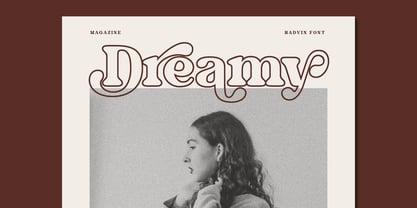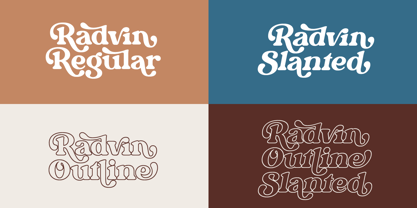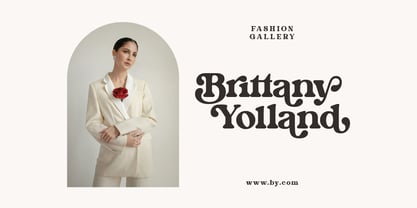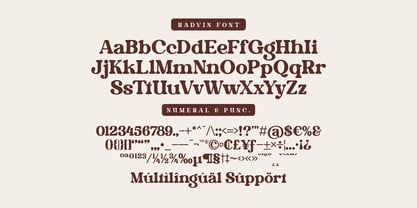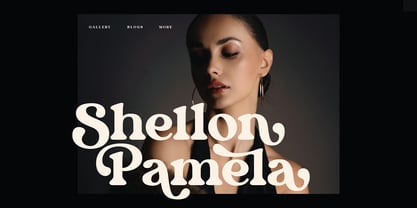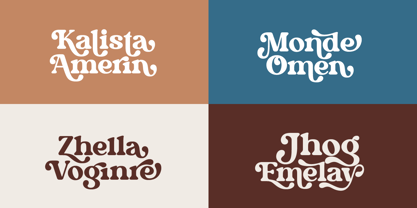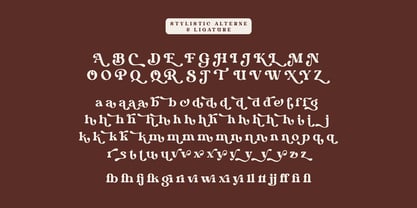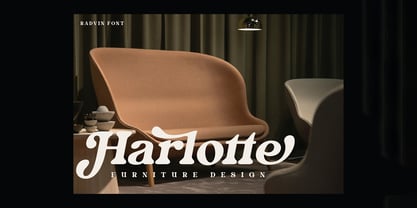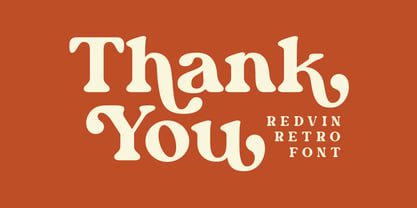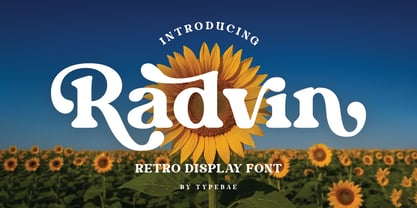
Radvin
by Typebae
Radvin is a retro display typeface featuring smooth curves and playful vintage vibes. Perfect for posters, logos, packaging, and any creative project that needs a nostalgic yet stylish touch. What’s Included: Radvin Regular, Slanted, Outline, Outline Slanted Uppercase, Lowercase, Numeral & Punctuation Stylistic Alternates & Ligatures PUA Encode & Multilingual